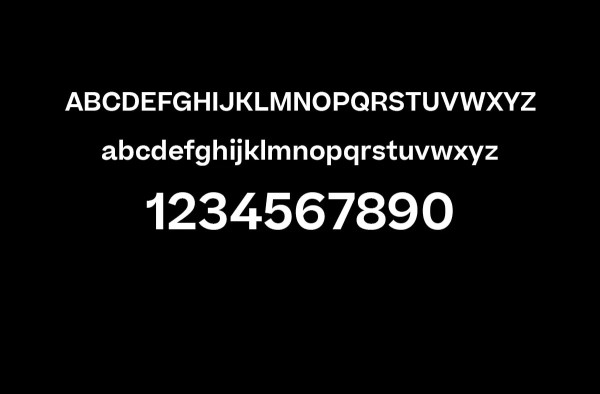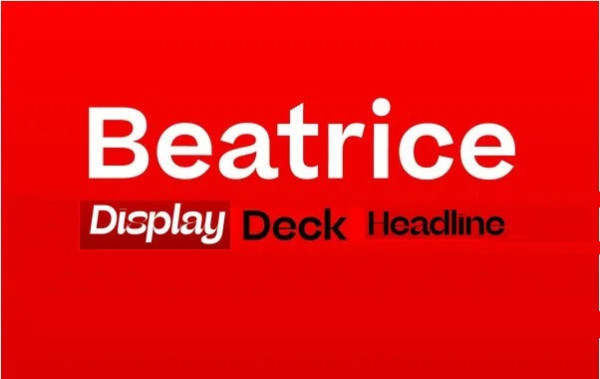
Beatrice Font
Beatrice Font is a new kind of typeface. The family is an exploration of contrast methodologies, combining various aspects from the canon expansionist systems, inverted contrast, and the contrast behavior of grotesks. These methodologies were dissected and used as cornerstones in creating our own system. When it was first released in 2018, Beatrice landed in largely unexplored territory, and the bar it set remains today. Built upon the foundation of the American Gothic and utilizing tight-not-touching spacing, the Beatrice superfamily features a robust set of weights across four optical sizes. Our iconic Display cut offers the highest head-turning contrast; use the Standard cut for all high-function-low-contrast needs; our newest additions, Headline and Deck, smoothly click into place between the original two sizes, offering a more complete spectrum of applications.